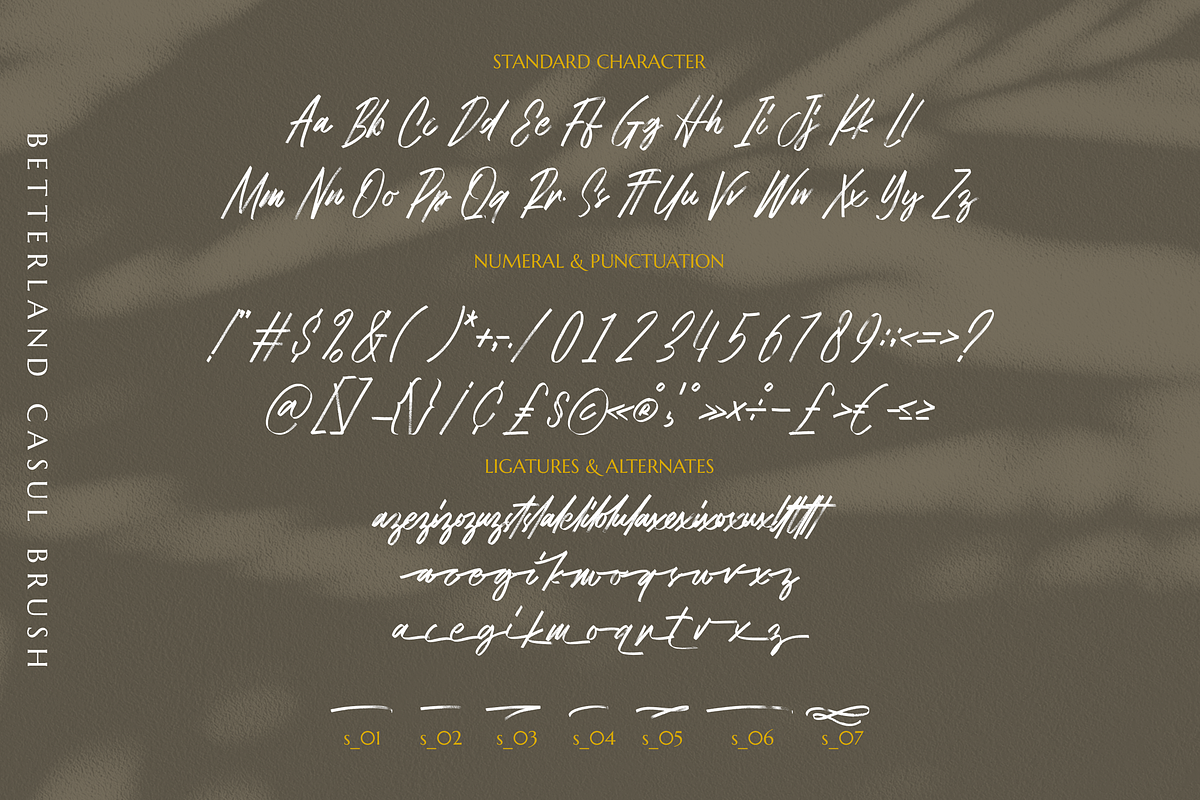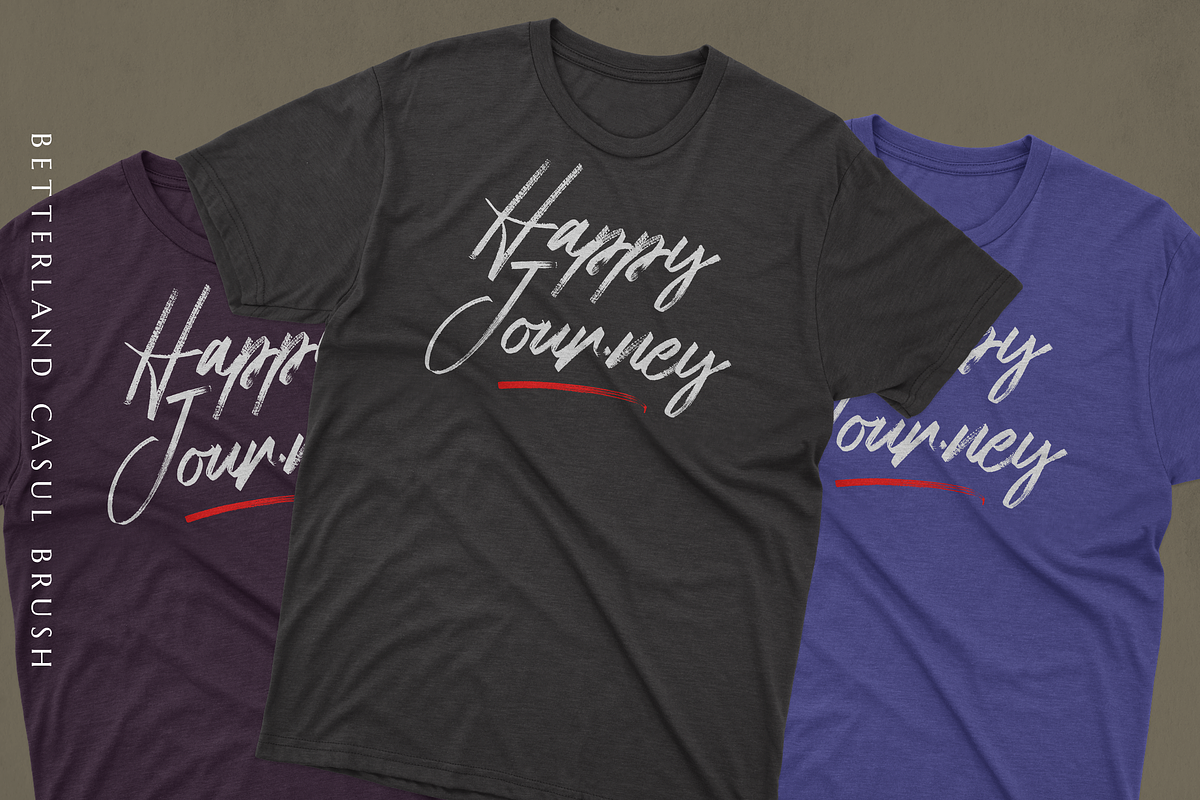
Betterlands - Casual Brush Script
Betterlands is a sophisticated brush script font that embodies a perfect blend of modern flair and elegant charm. Its fluid, hand-drawn strokes exude a sense of creativity and refinement, making it an ideal choice for a variety of design projects. Whether you’re crafting eye-catching titles, memorable taglines, or distinguished branding elements, Betterlands adds a touch of class and artistry to your work. This versatile font is also well-suited for creating captivating book covers, compelling movie posters, and more. Elevate your design aesthetic with the unique and stylish presence of Betterlands.